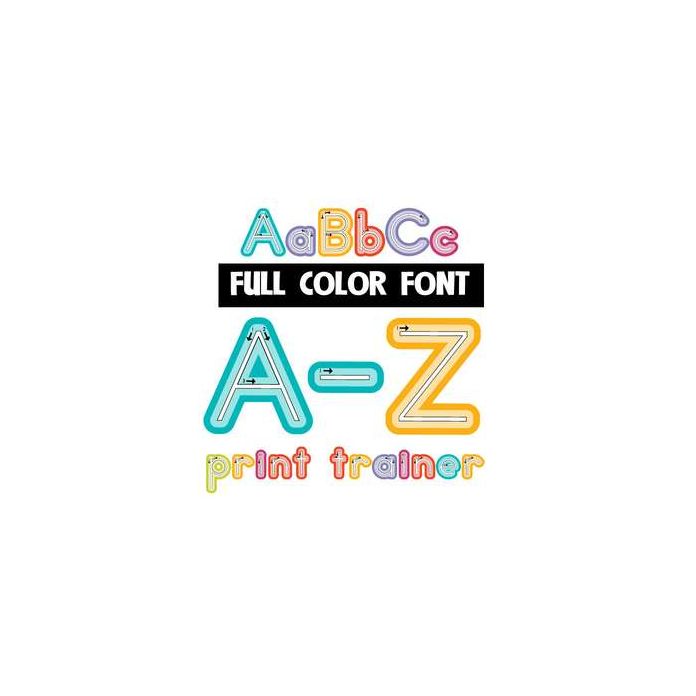
This full-color font features directional numbers and arrows to teach a child to print. This font works best for titles, displays, posters and more. Please note color fonts will show as black in non compatible programs. This font type is compatible with Silhouette Studio.